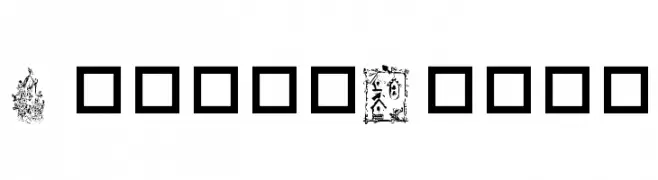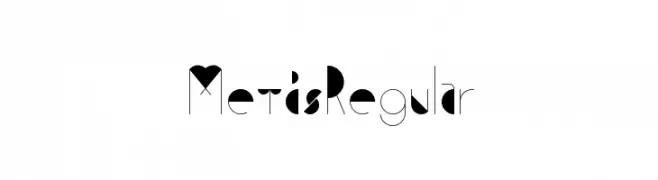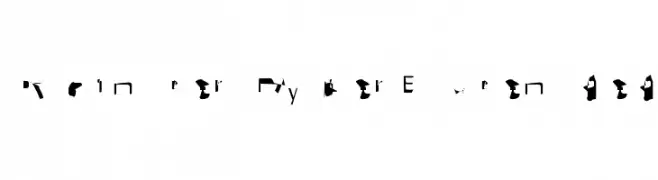
A decorative, gear-like font with intricate, jagged edges.
A specialized font for harp pedal notation with clear, structured symbols.
A specialized font for musical figured bass notation with clear, bold characters.
A diverse collection of decorative and expressive script fonts with unique flair.
A modern, geometric font with high contrast and playful design.
An ornate, bird-themed decorative font with intricate designs.
A bold, sports-themed font with integrated basketball motifs.
A whimsical font with characters encased in a stylized lion's mane.